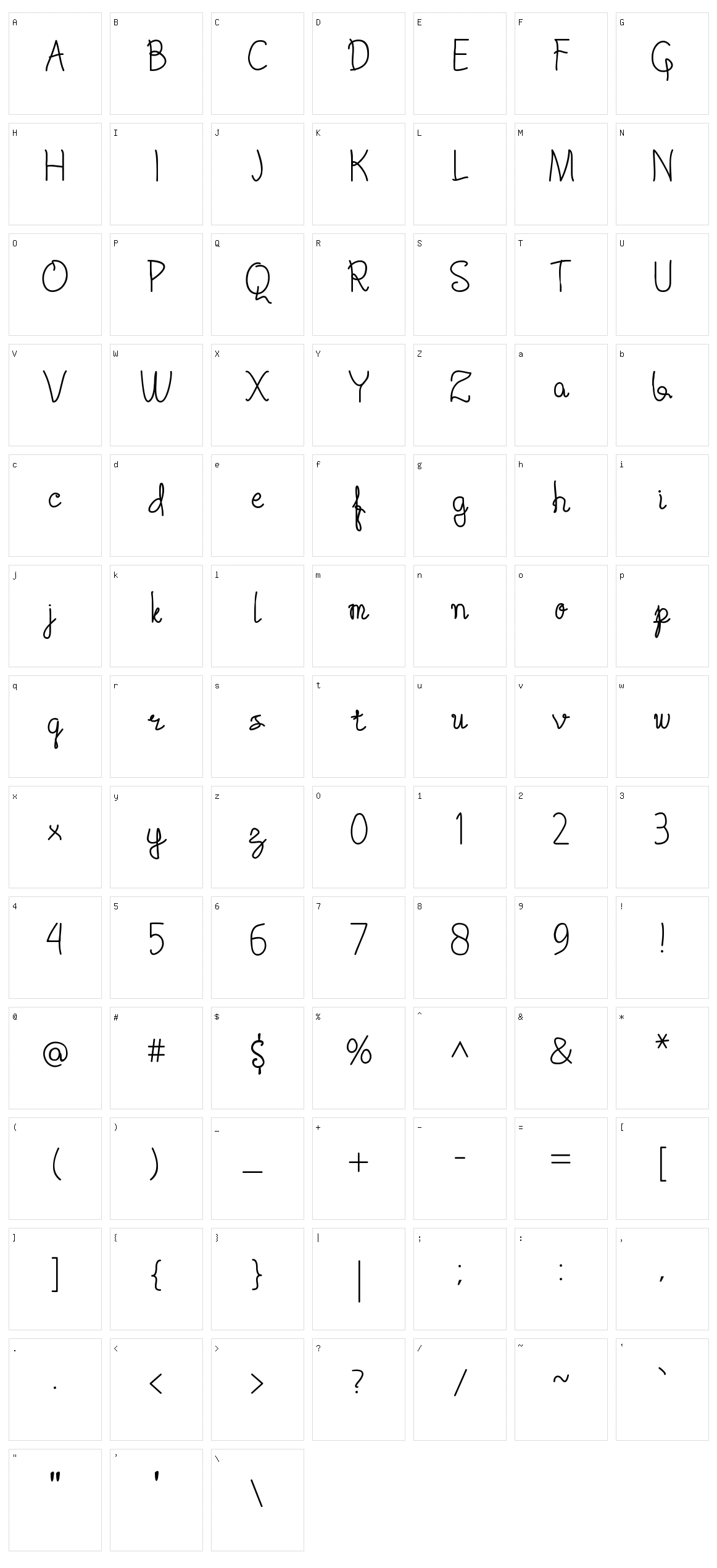
The free font Rumors Skill is carefully designed by Zkhai Creative, showcasing a thoughtful balance of creativity and usability and falls under the School font style. When you download the ZIP file, it contains only 37.11 KB of font files, making it lightweight and quick to download. Please review the license details below to understand permitted usage and distribution rights. If license information is not available, we recommend using this font for personal projects only or contacting the author directly for commercial usage permissions.